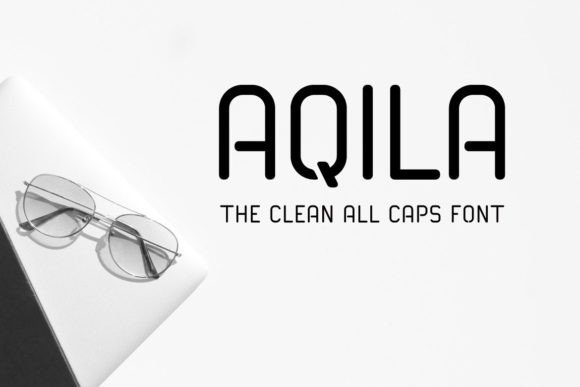
The Designer’s Delight: Aqila Font
I still remember the frustration of working on a project, hours spent perfecting every detail, only to be held back by one thing: the font. It was a client request for a bold, modern look, but nothing seemed quite right. That was until I stumbled upon Aqila, a clean and modern all-caps display font that instantly elevated my design. In this article, I’ll share my experience with Aqila, its features, and how to make the most of it in your projects.
An Honest Review of Aqila Font
What I Love About Aqila ✨
- ✅ Balanced and varied: Aqila strikes the perfect balance between not being too thin and not too thick, making it versatile for various design projects.
- ✅ Clean and modern: Its sleek lines and contemporary feel make it perfect for designs that demand a fresh look.
- ✅ Easy to read: Despite being an all-caps font, Aqila maintains readability, even at smaller sizes.
- ⚠️ Limited use in body text: Due to its design as an all-caps display font, Aqila might not be the best choice for lengthy body text.
- ⚠️ Requires careful kerning: As with any font, especially in all-caps, attention to kerning is crucial to ensure a polished look.
The Story Behind Aqila Font
Aqila was designed with the aim of creating a versatile and modern all-caps display font. The designer sought to fill a gap in the market for fonts that were neither too thin nor too thick, aiming for a balanced look that could enhance various projects without overpowering them. Inspired by modernist principles and a love for clean lines, Aqila was crafted to be both beautiful and functional.
Q: Is Aqila suitable for body text?
A: While Aqila is primarily designed as a display font, its readability makes it possible to use in short paragraphs of body text. However, for lengthy text, a more traditional font might be more appropriate.
Q: Does Aqila support OpenType features?
A: Yes, Aqila supports OpenType features, allowing for more stylistic variations and glyphs to enhance your designs.